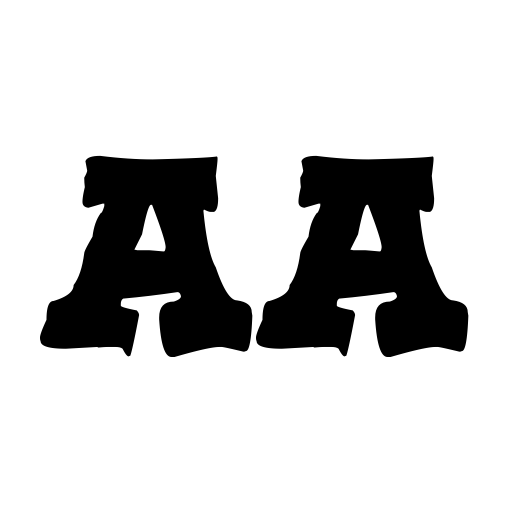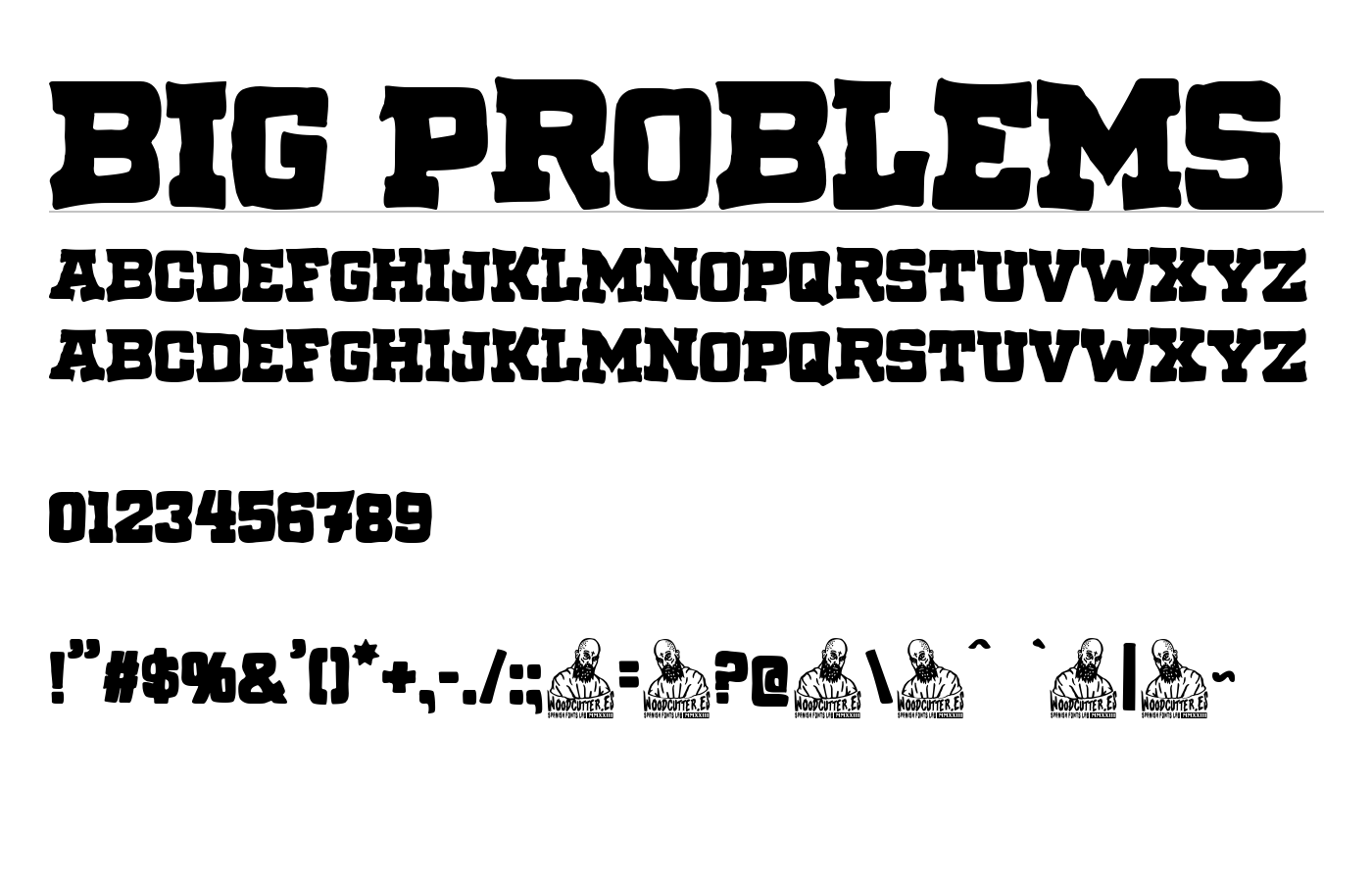
Big Problems is a bold, slab serif typeface with a vintage Western feel, featuring sturdy, blocky letterforms and subtle irregularities that add character and charm. Its strong presence and slightly condensed style make it perfect for eye-catching headlines, posters, and branding that aims to convey ruggedness, confidence, and a sense of adventure. This font’s distinctive look works well for bold statements in packaging, logos, and editorial projects wanting a classic yet playful touch.
Big Problems Font
About Big Problems Font